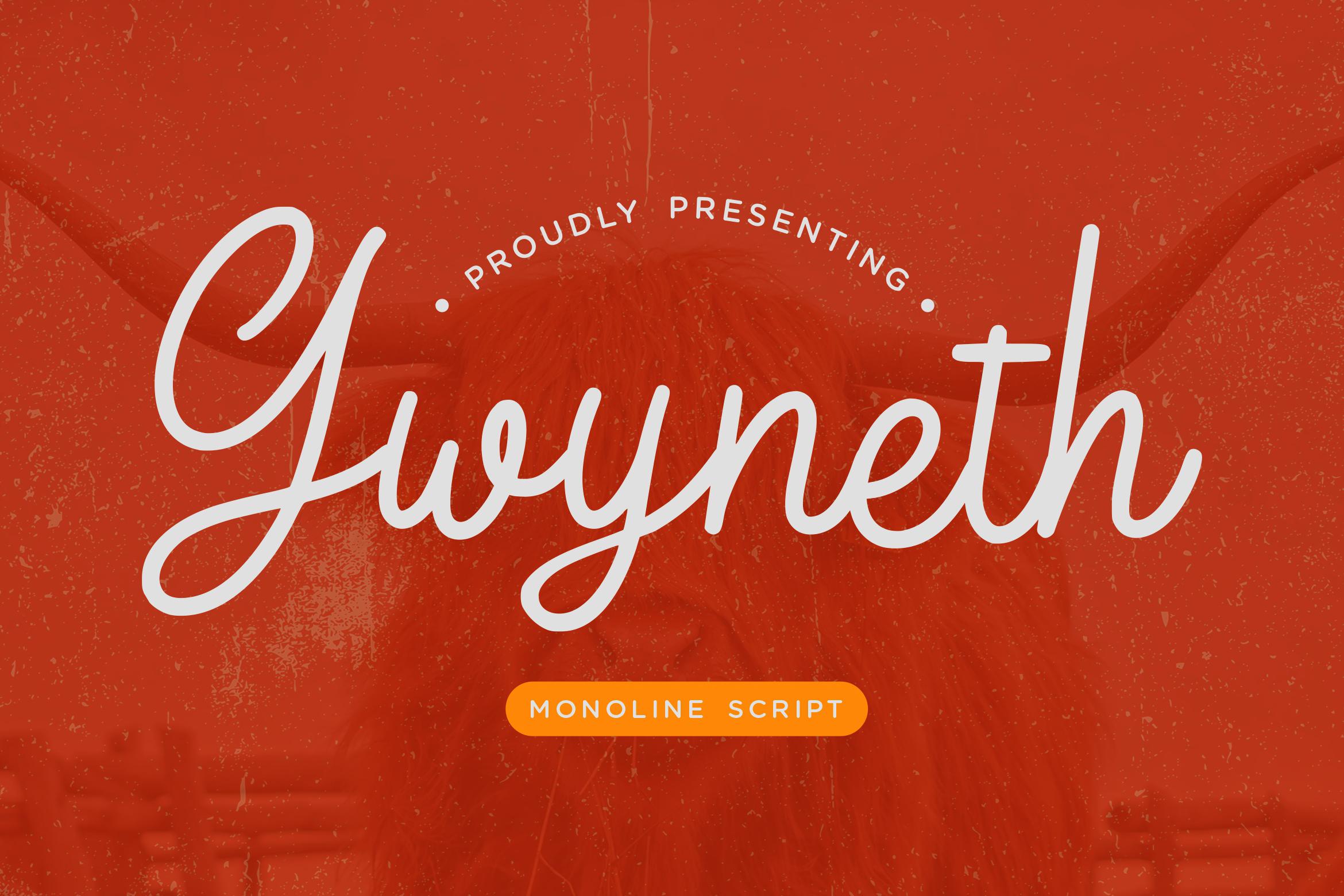
Gwyneth Font Description
Gwyneth is an exquisite handwritten font, masterfully designed to become a true favorite. It maintains its classy calligraphic influences while feeling contemporary and fresh. Fall in love with it and bring your projects to the highest levels!